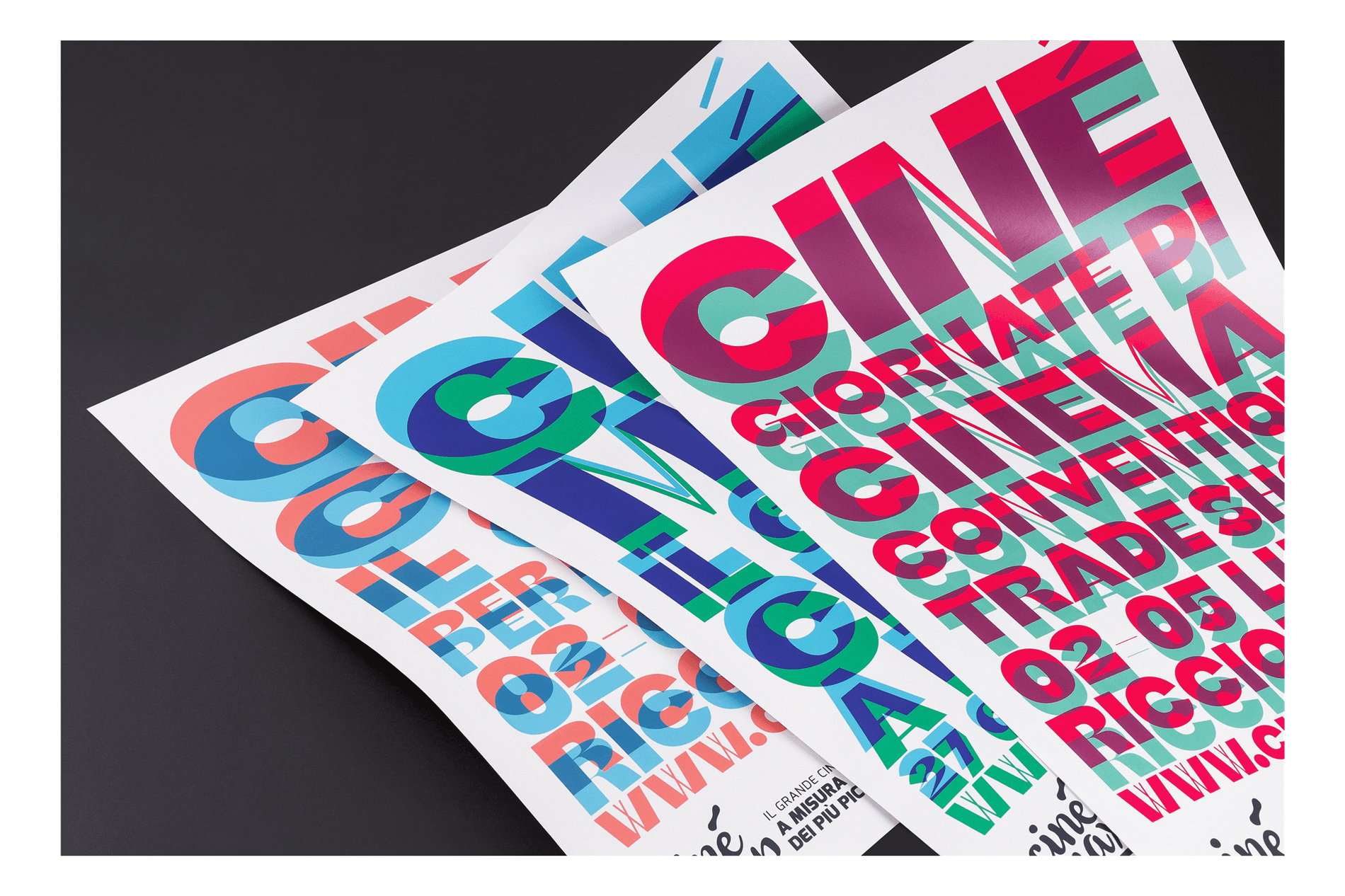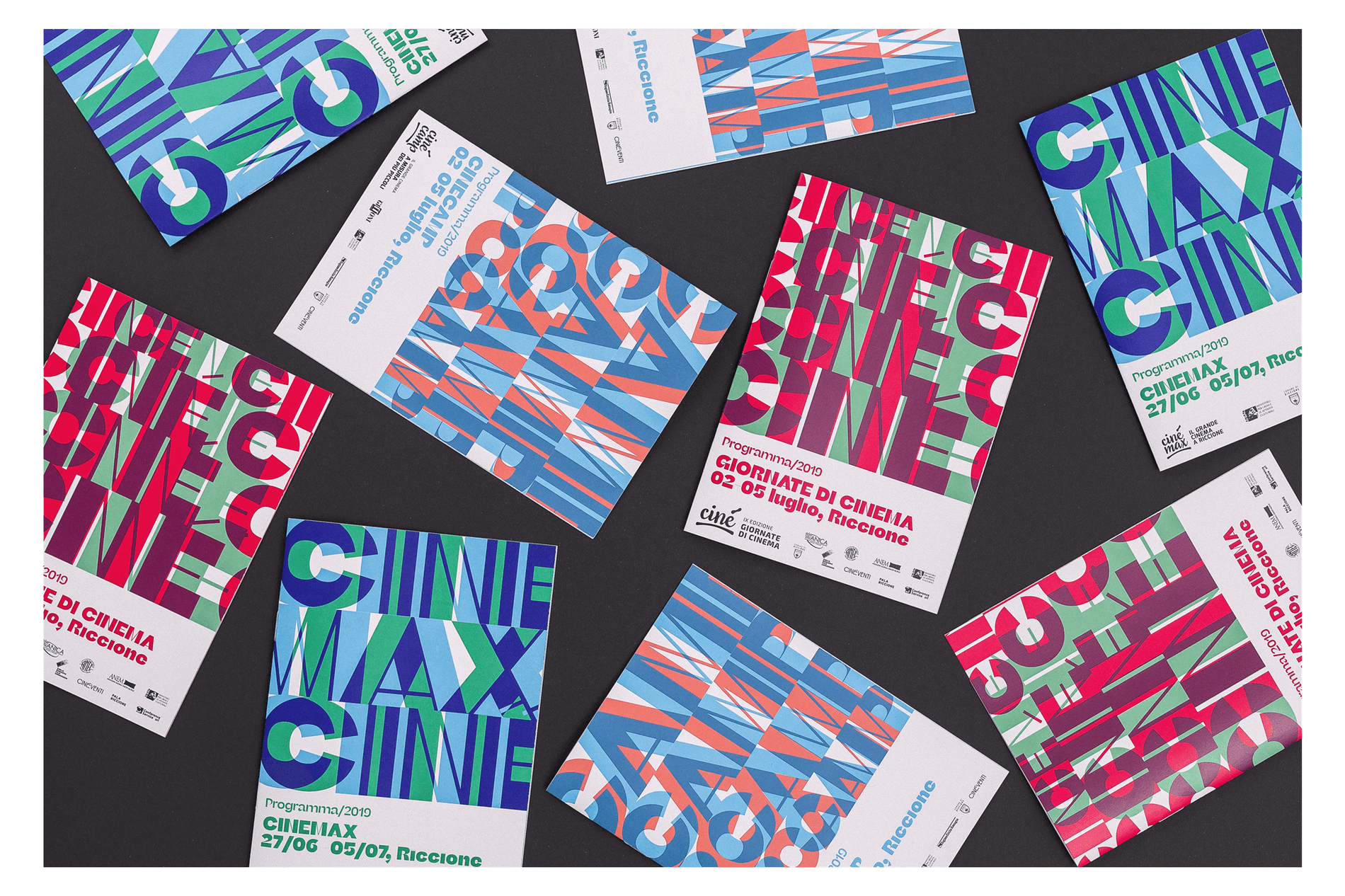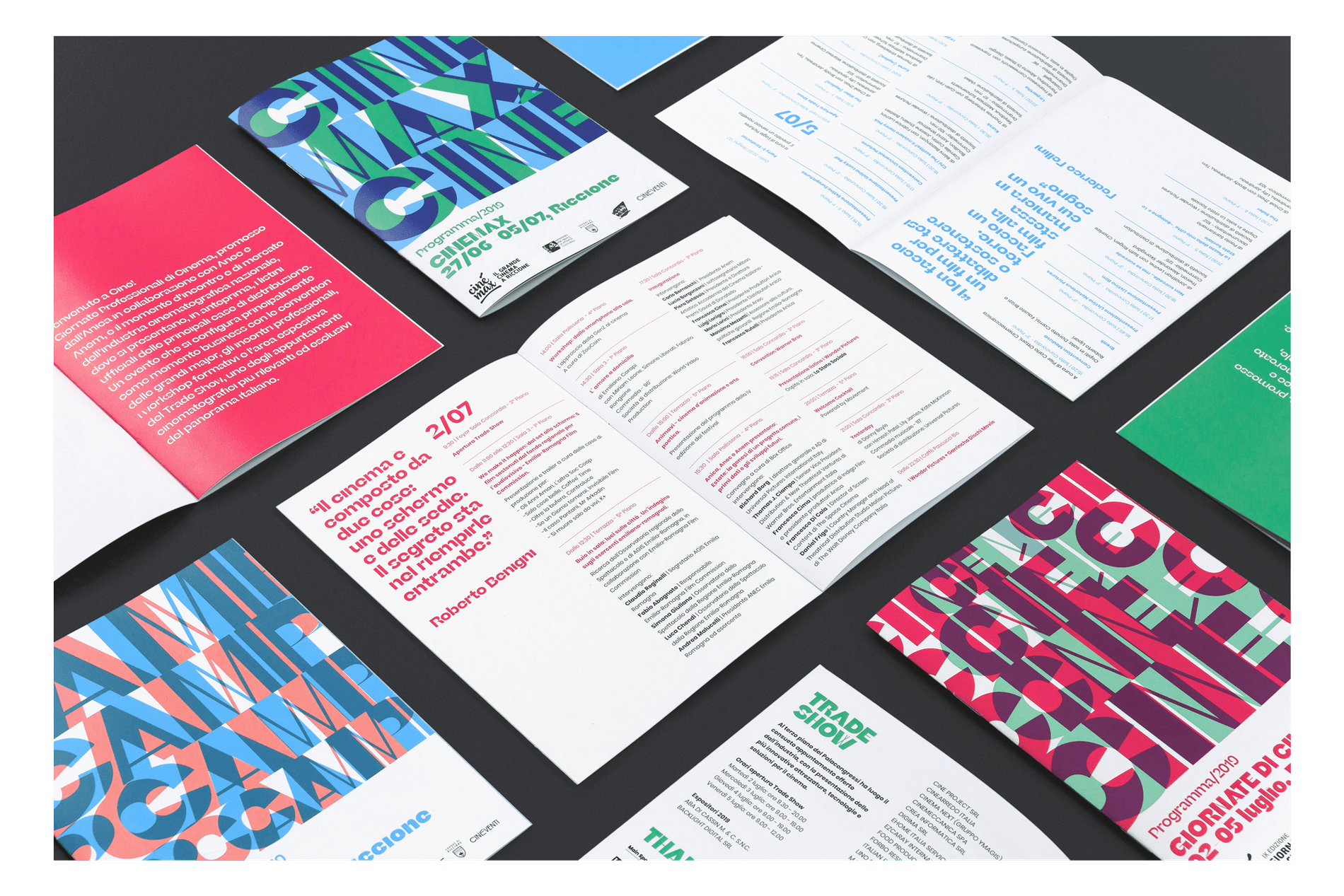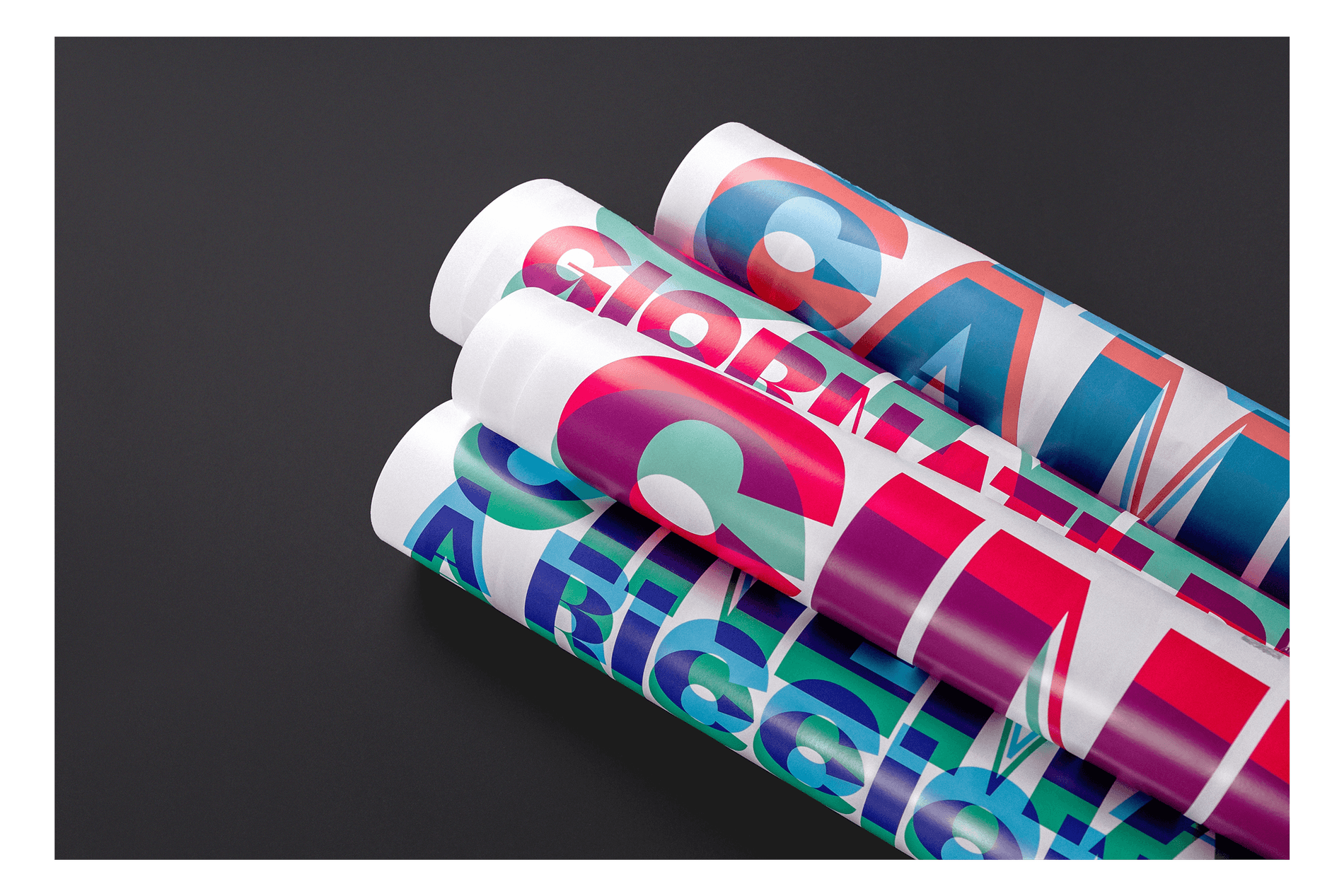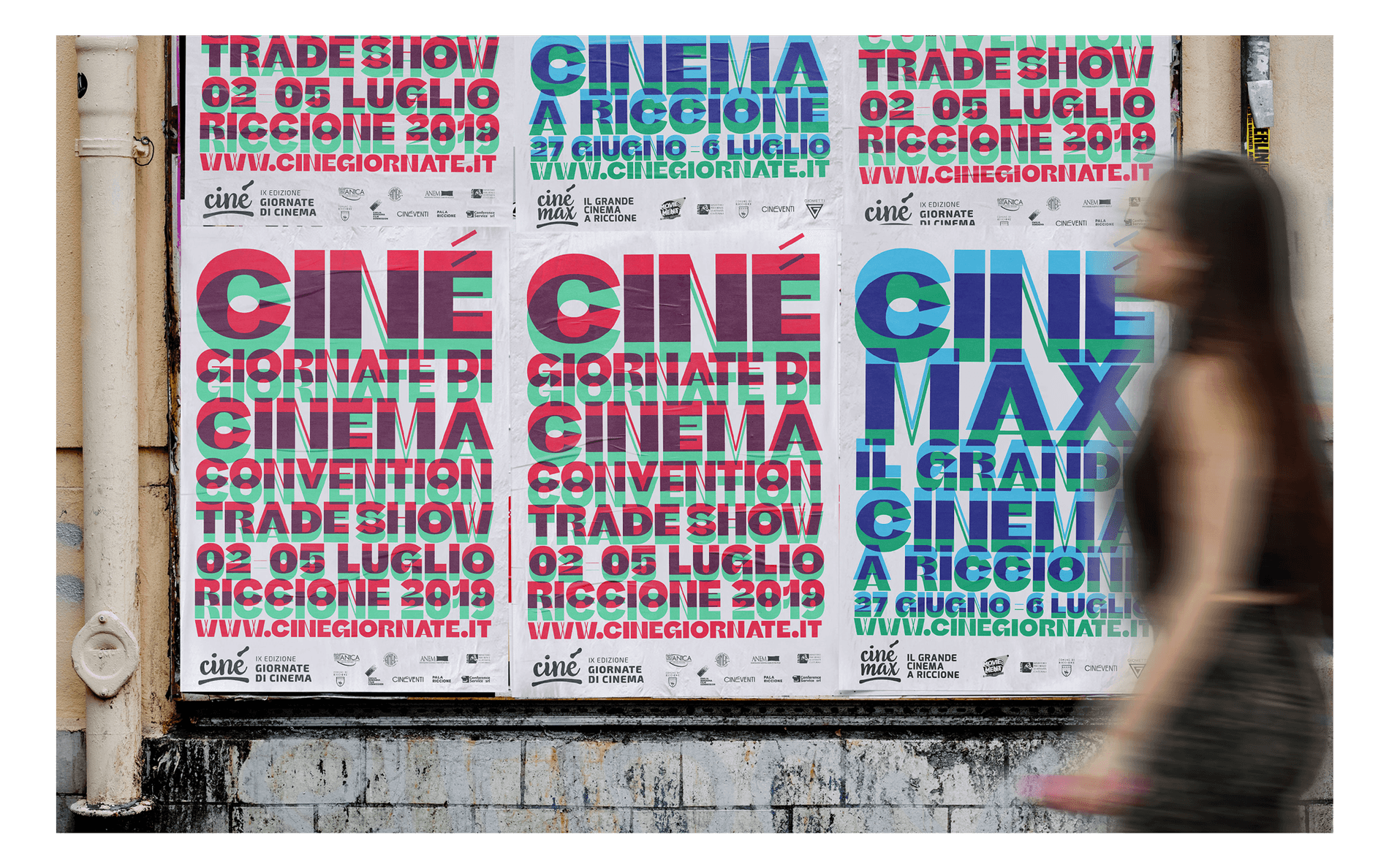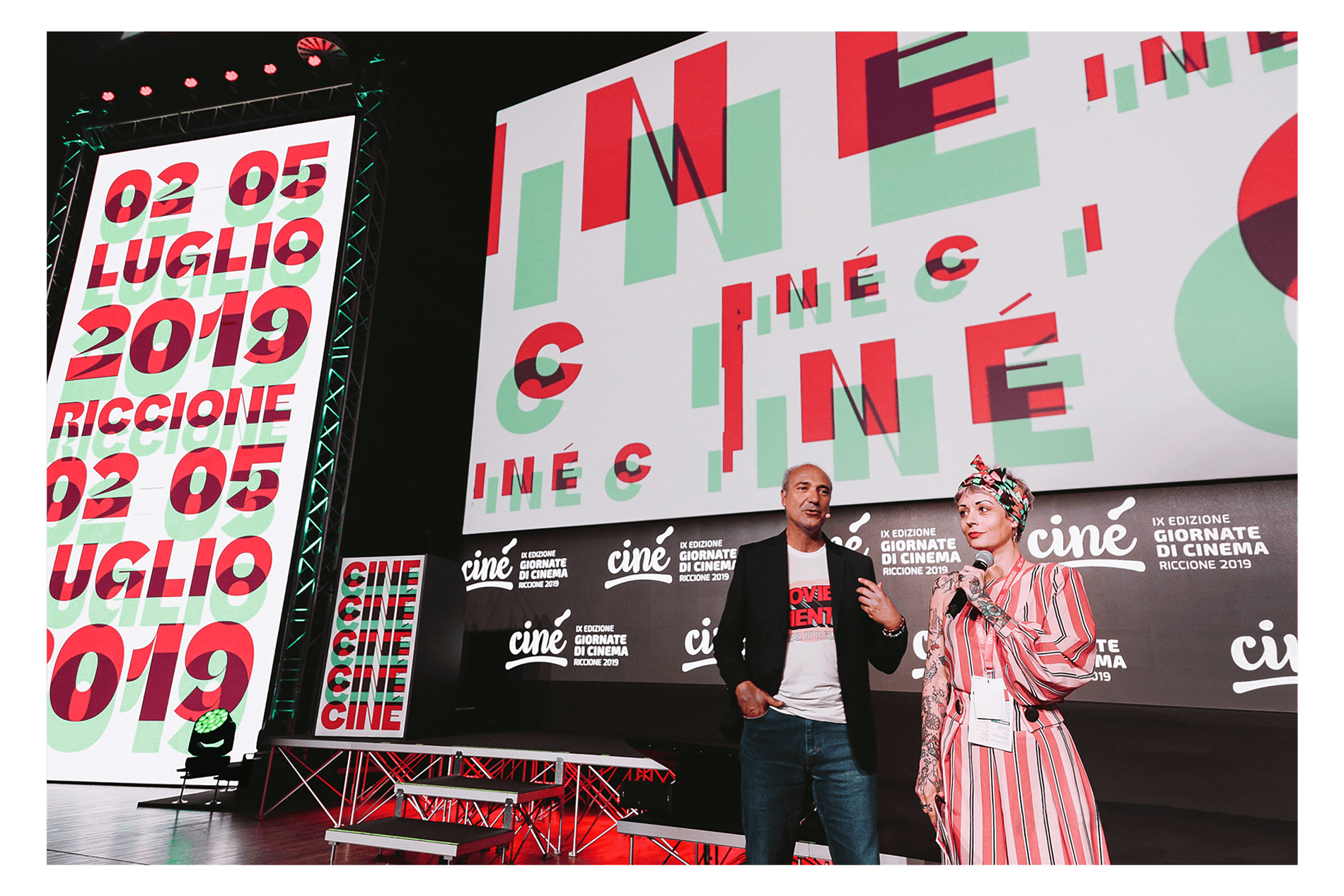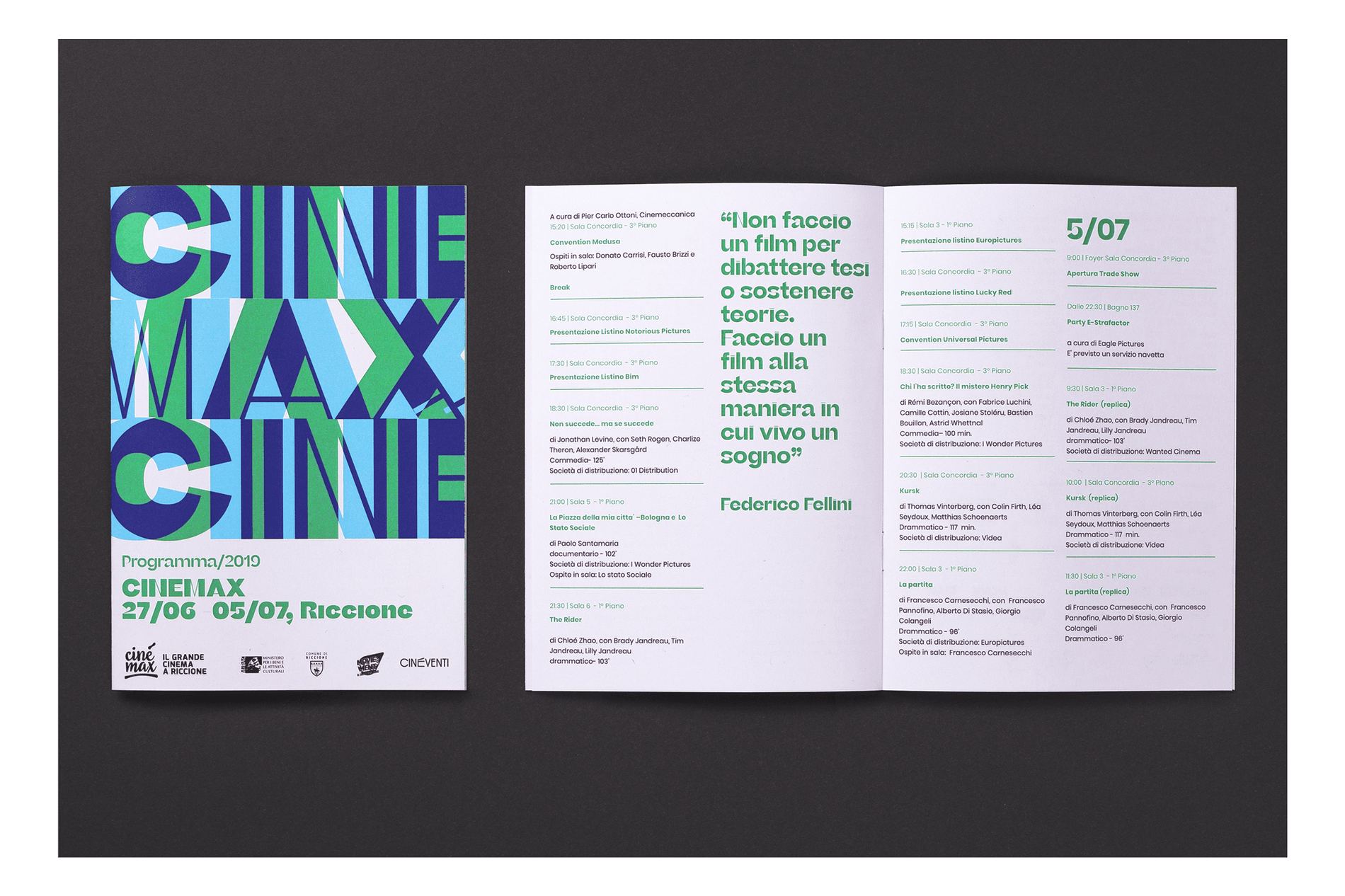
Cinegiornate is an annual cinema festival in Riccione, Italy, dedicated to professionals in the film industry. For its 9th running year in 2019, Paula Del Mas served as the Art Director and designer, creating a typographically driven identity with Beatrice Display as the primary typeface on posters, brochures, badges, invitations, signage as well as banners for the façade of the building.
The overlaying, multicolored type and Beatrice’s unique internal contrast design, create a sense of dynamic movement and cinematic energy. Del Mas said she was inspired by the repetition of film frames and movement in cinema, which led her to layer Beatrice Display to create a typographic pattern. Gimmewings Studio also put this pattern into motion with animated graphics that played before each screening.
Typeface: Beatrice Display